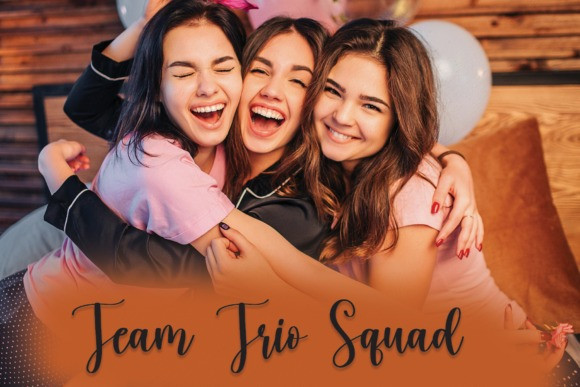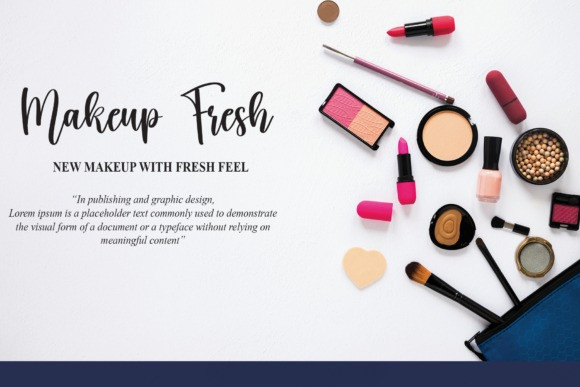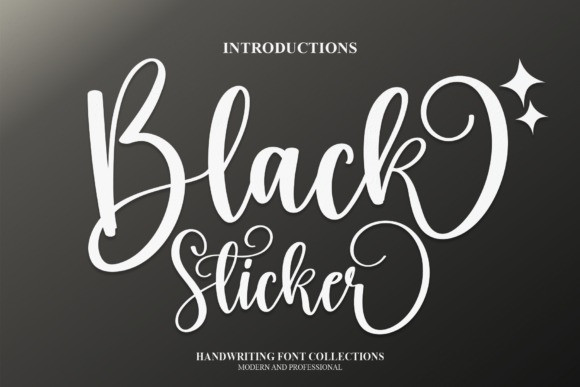
Black Sticker Font
Black sticker Font is an exquisite and beautifully flowing script font perfect for wall displays, wedding invitations, social media post logos, advertisements, product packaging, product designs, labels, photography, watermarks, invitations, stationery, and any project that requires impressive typography.